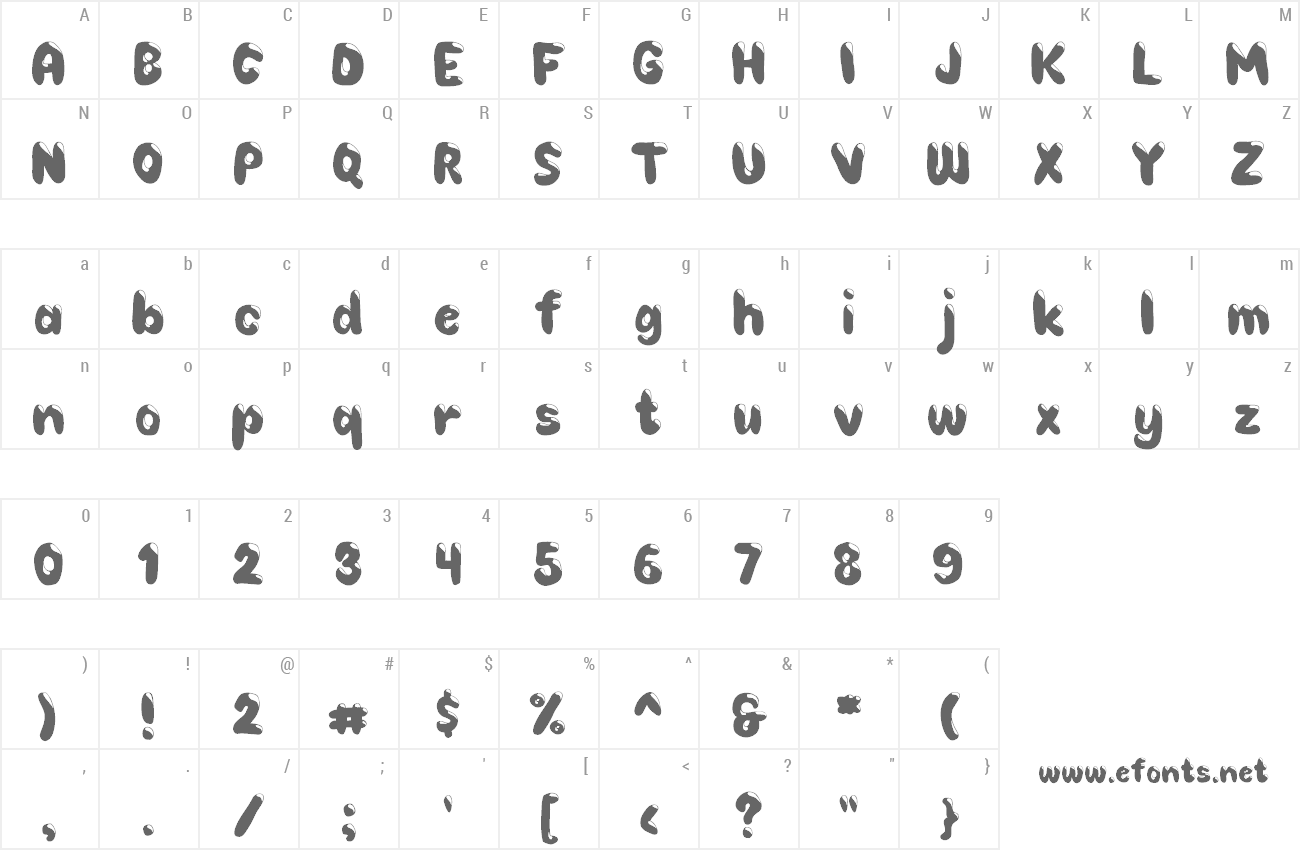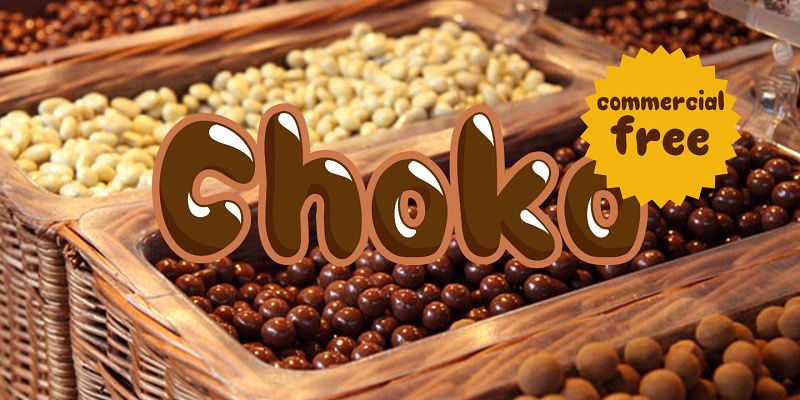
Preview and download Choko Font. Created by Måns Grebäck in Fancy Cartoon styles with 100% Free license.
The Choko font was created by Måns Grebäck in 2011 but remained unreleased until 2016. Place the different styles on top of each other to create a multicolor text. If you have Photoshop, you can use the PSD file attached to the download to write anything you like. This font can be used for any project, commercial or non-commercial, 100% for free. Visit my website: http://www.mansgreback.com Like my fonts on Facebook: http://www.facebook.com/mansgreback |